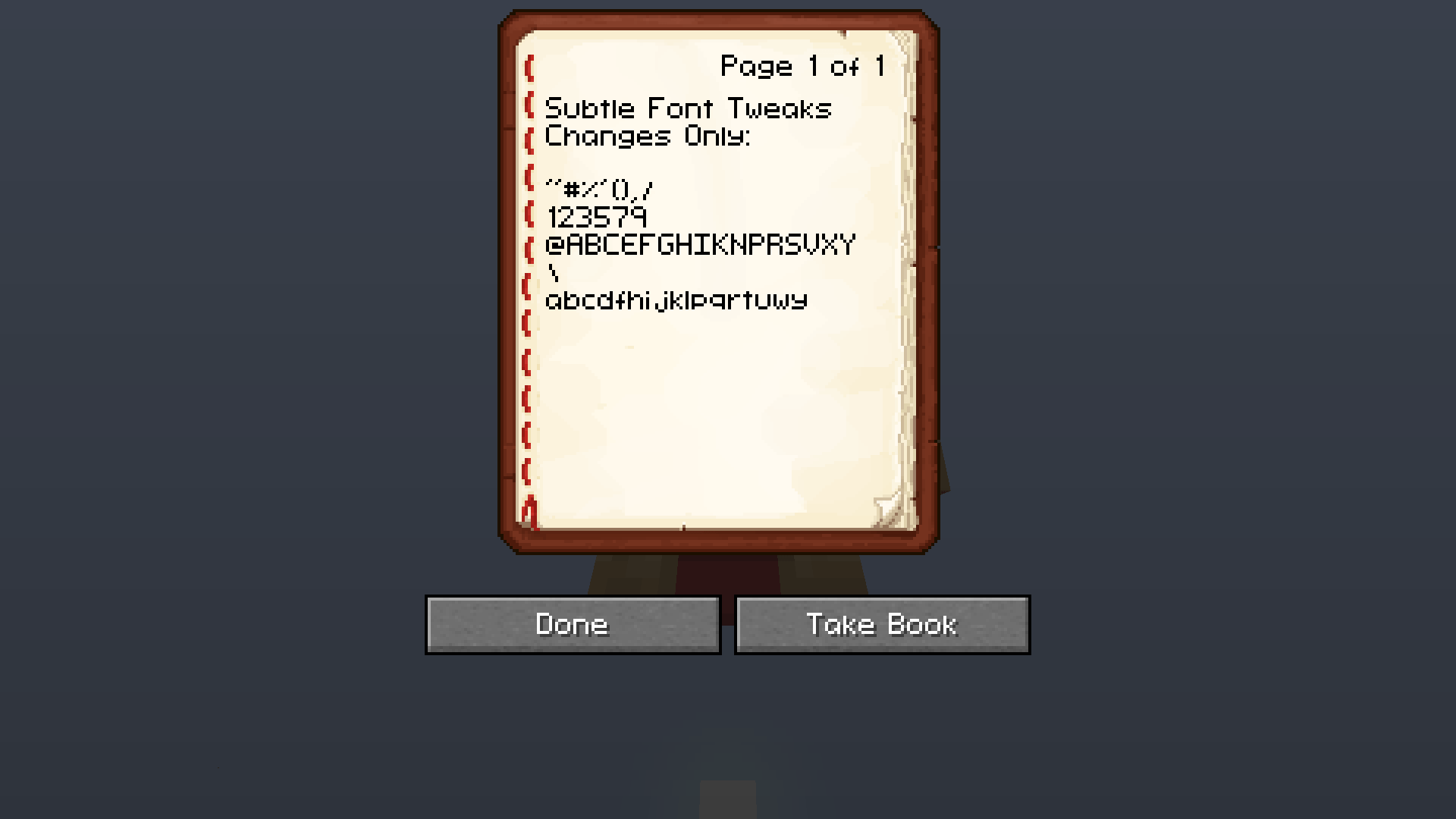
Subtle Font Tweaks
This subtle Minecraft font pack makes lowercase letters smaller and rounder and centers capitalized letters. They are minor changes with a fresh new feel.
v2.2 Side-by-side
Default Font
Subtle Font Tweaks v1.0
Default Font Changes Only v1.0
Subtle Font Tweaks Changes Only v1.0